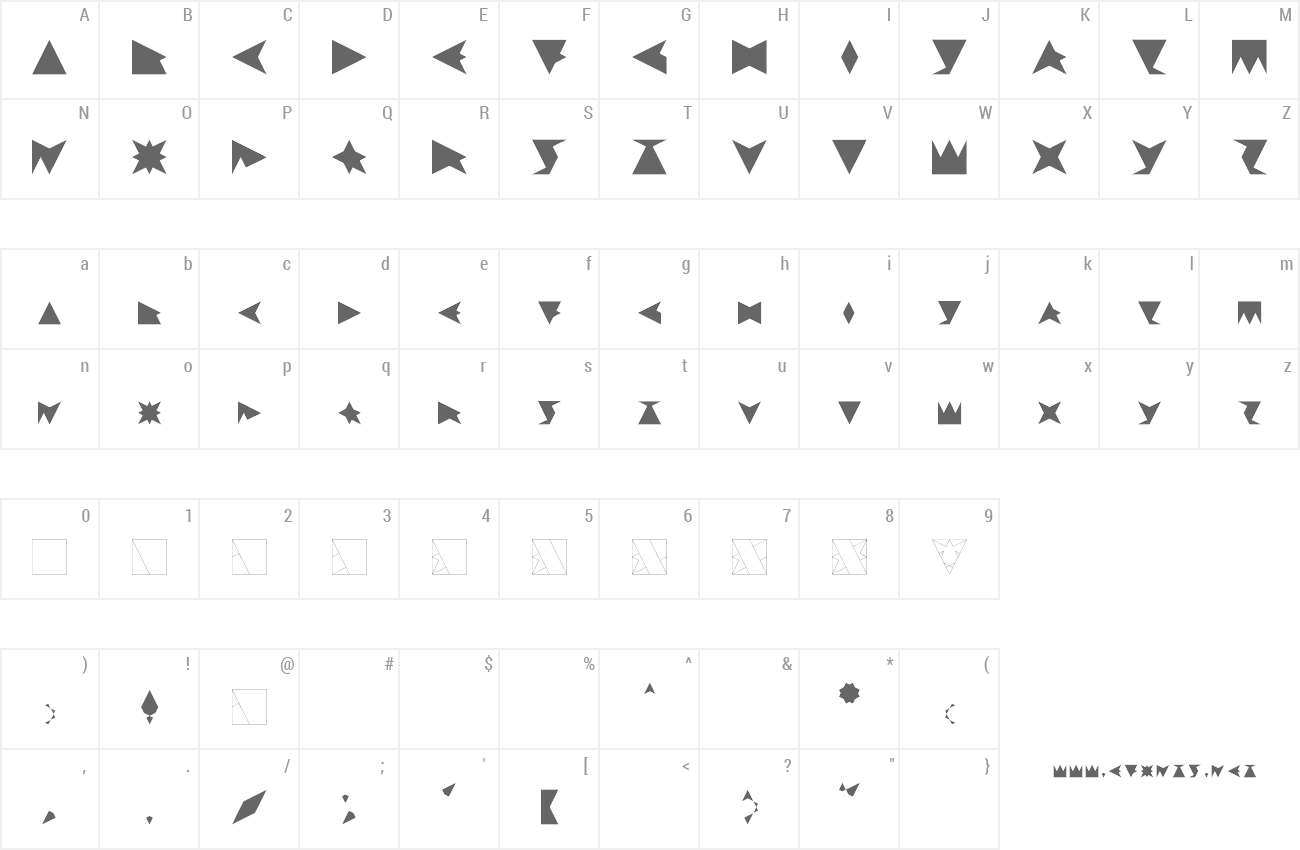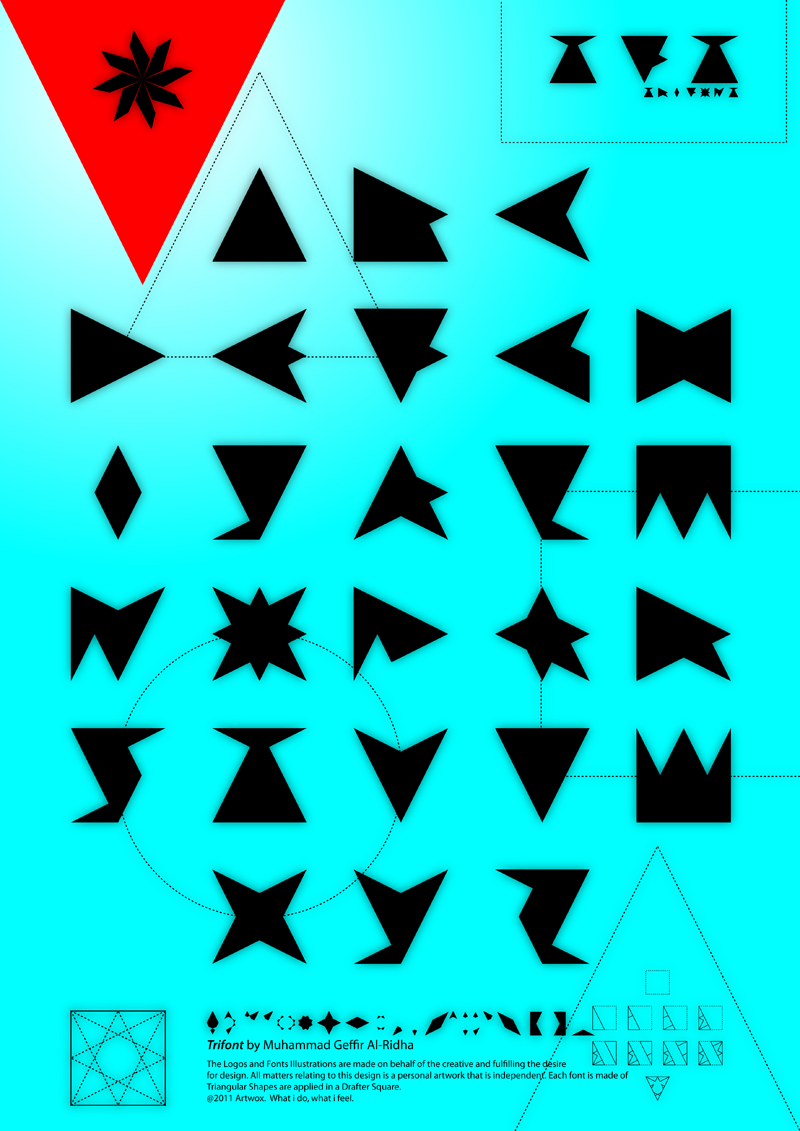
| Font name: | Trifont |
| Author: | Muhammad Geffir Al-Ridha |
| Note by Muhammad Geffir Al-Ridha | |
| Font made from Triangular Shapes are applied in a "Drafter Square". |